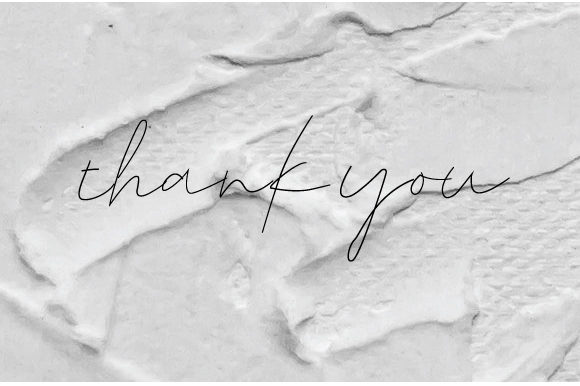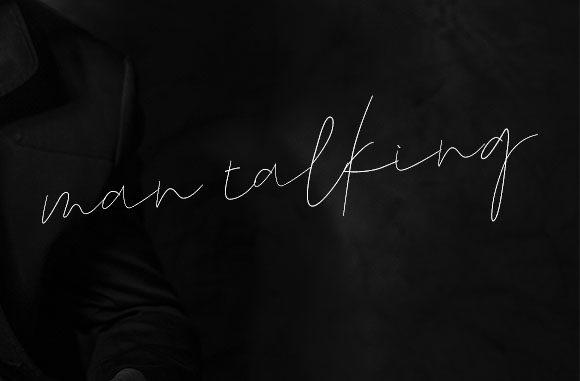
About Browen Font
Browen is a simple yet stylish and thin lettered handwritten font that brings a touch of elegance to your designs. With its versatile nature, this script font offers a wide range of applications, making it suitable for various design projects.
The clean and sleek lines of Browen create a modern and sophisticated look. The thin strokes and well-balanced letterforms add a sense of delicacy and refinement to your designs. Whether you’re creating greeting cards, headlines, or other projects, Browen is sure to elevate the overall aesthetic with its romantic charm.
This font’s versatility allows it to be used in a variety of design contexts. It can be applied to greeting cards, adding a romantic touch to special occasions like weddings, anniversaries, or Valentine’s Day. Browen is also well-suited for headlines, capturing attention and delivering a stylish and elegant message.
The simplicity of Browen’s letterforms allows for easy readability, making it ideal for conveying important information in a clear and concise manner. Its thin and stylish appearance adds a touch of sophistication to any project, creating a visually pleasing and memorable design.
Whether you’re working on personal or professional projects, Browen offers a versatile and stylish option to enhance your designs. Its thin and elegant letterforms make it a versatile choice for a wide range of applications, adding a romantic feel and a touch of refinement to your next project.
In summary, Browen is a simple, stylish, and thin lettered handwritten font that brings a romantic and sophisticated feel to your designs. Its versatility allows it to be used in various design projects, from greeting cards to headlines. Embrace the elegance of Browen and create visually stunning and memorable designs with a touch of romance.